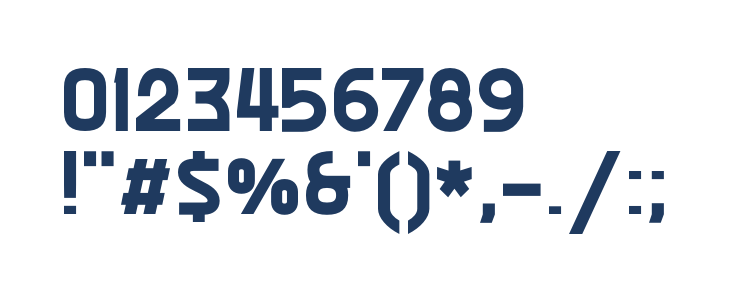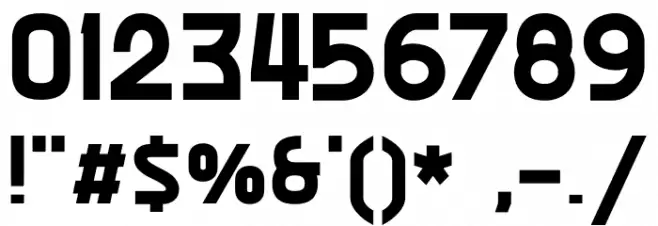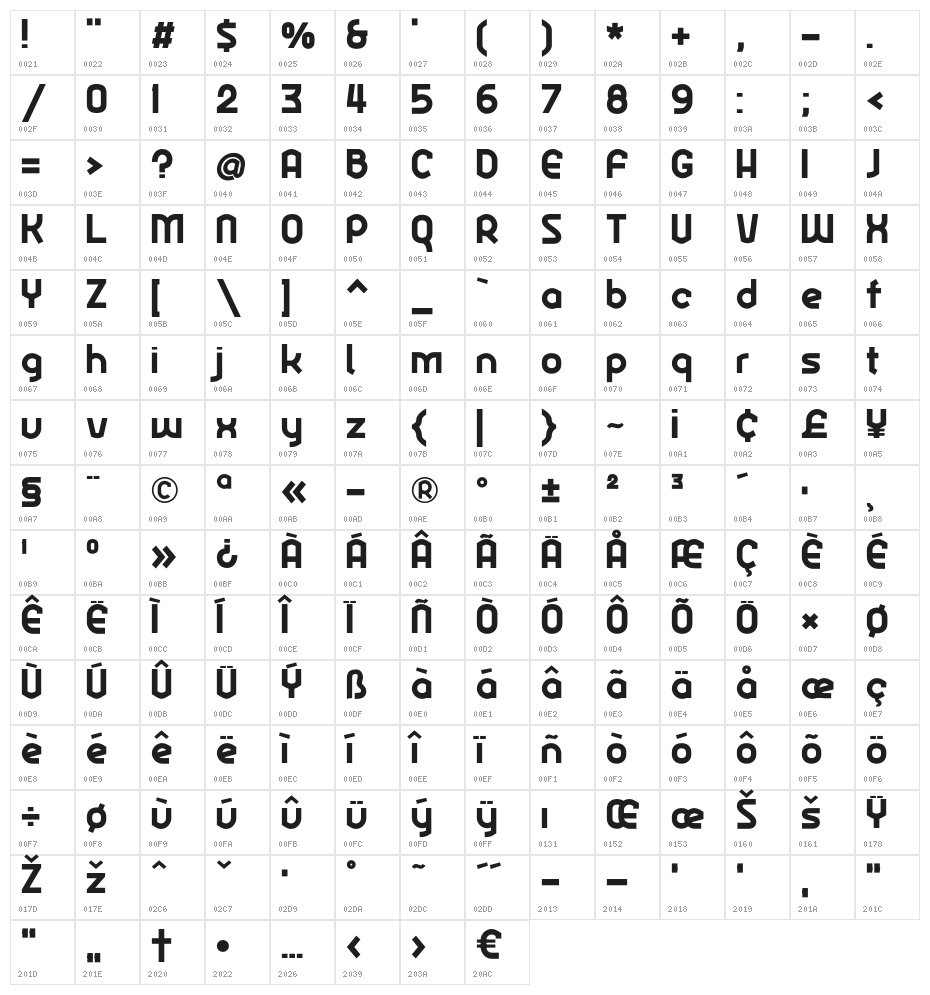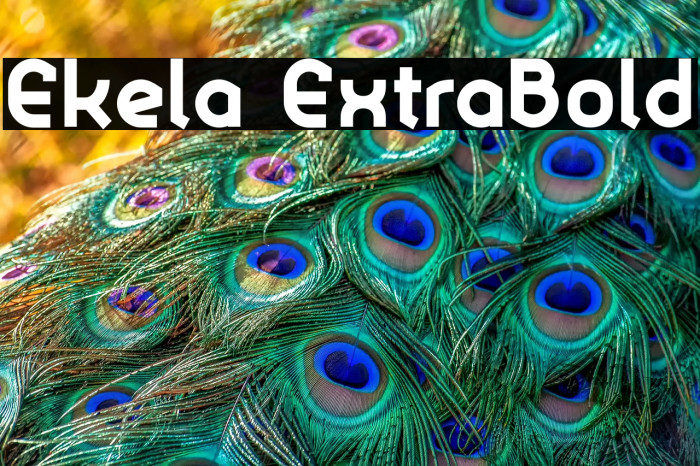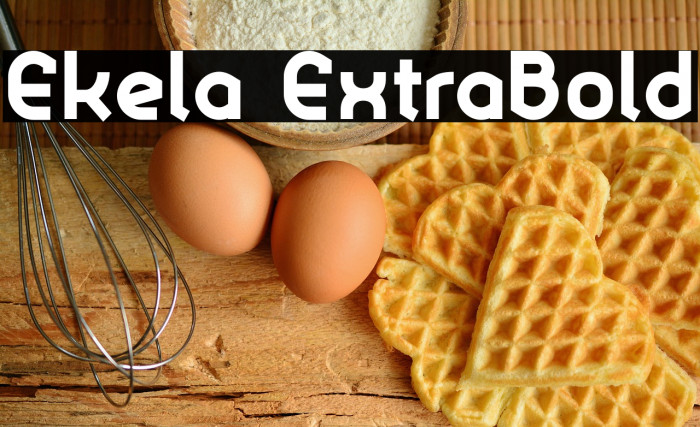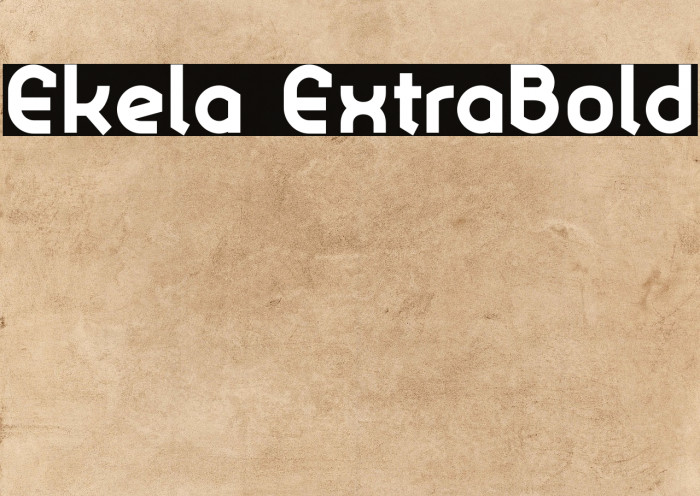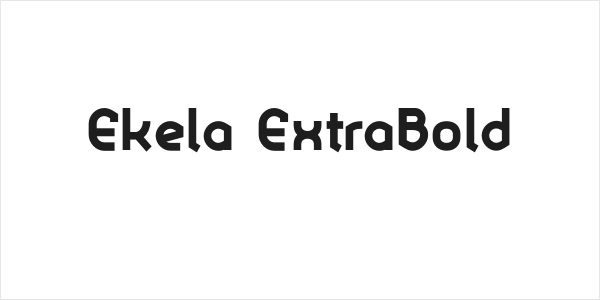
Ekela ExtraBold Font
Ekela ExtraBold Description
This font features a bold and geometric design with a modern flair. The characters are constructed with strong, angular lines and a consistent stroke width, giving it a robust and impactful appearance. The uppercase letters are particularly striking, with a uniform height and width that create a cohesive look. The lowercase letters maintain the same geometric style, ensuring readability while adding a touch of uniqueness. Numbers and special characters are designed to match the overall aesthetic, making them easily recognizable and visually appealing. The font's boldness and clarity make it suitable for various design projects that require a strong visual presence.